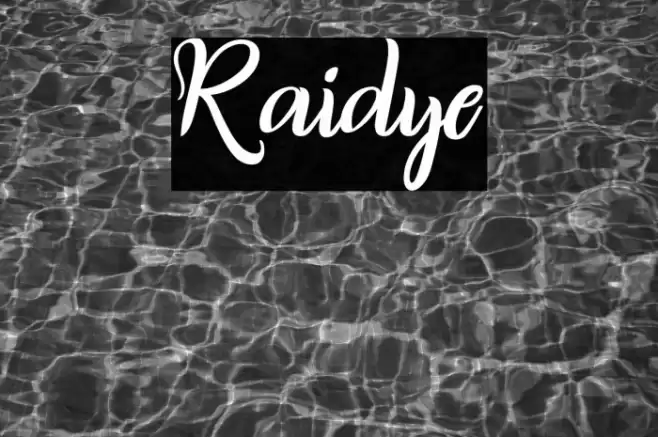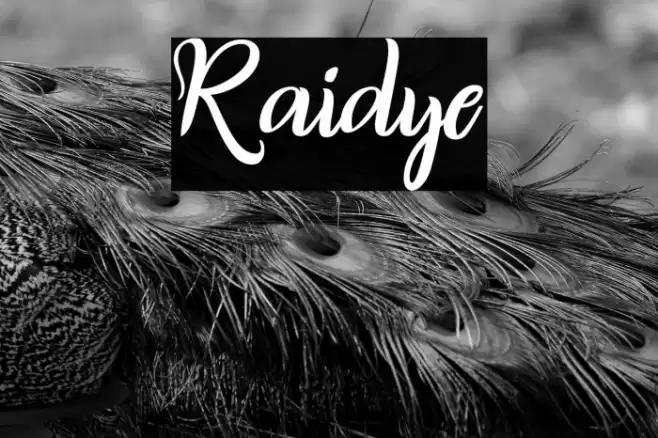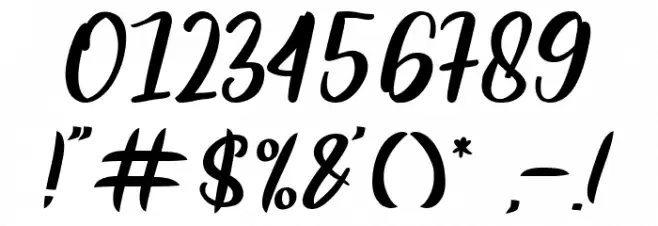
Raidye Font
Raidye Description
This font showcases a dynamic and flowing script style, characterized by its elegant and fluid letterforms. The uppercase letters exhibit a graceful, cursive quality with smooth curves and subtle flourishes, while the lowercase letters maintain a consistent rhythm and balance. The numerals are bold and slightly italicized, complementing the overall aesthetic. Special characters are thoughtfully designed to match the script's fluidity, enhancing its cohesive appearance. This font exudes a sense of sophistication and creativity, making it suitable for various artistic and formal applications.
A dynamic and elegant script font with fluid, cursive letterforms from Uncategorized fonts.
- Proposed Projects: Ideal for wedding invitations, branding, greeting cards, and artistic projects.
- Use Case: Logos, Invitations, Artistic projects